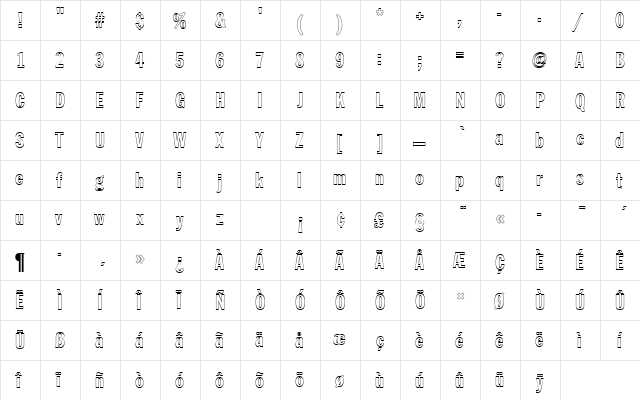
FranklinGotTExtConOu1 Regular Font Preview
FranklinGotTExtConOu1 Regular
Design Context for FranklinGotTExtConOu1 Typeface
FranklinGotTExtConOu1 is a composed and adaptable typeface that performs quietly and consistently across a wide range of design contexts.